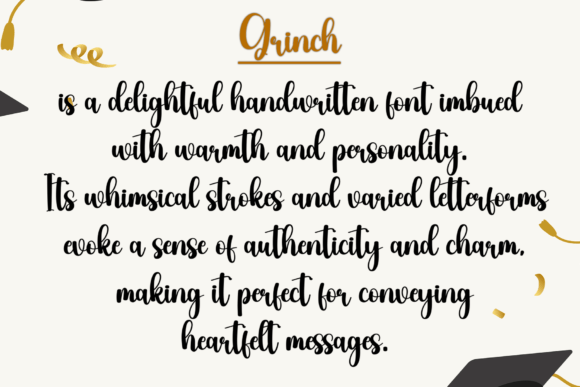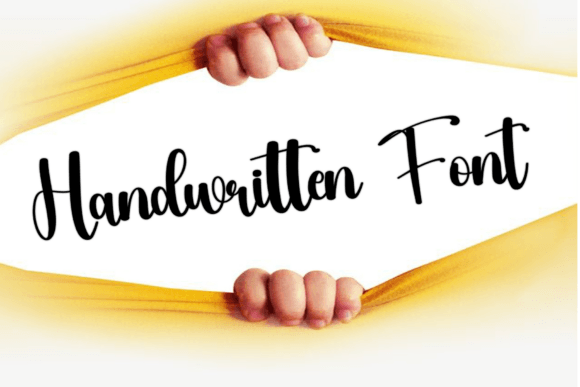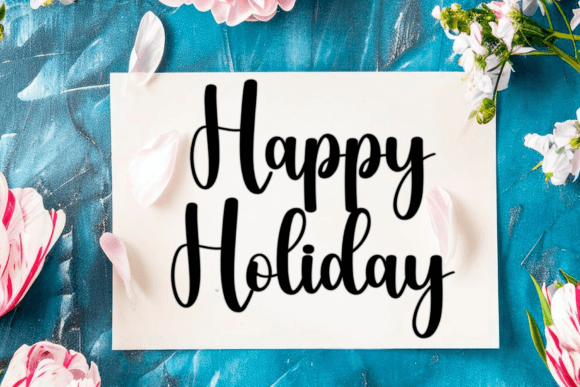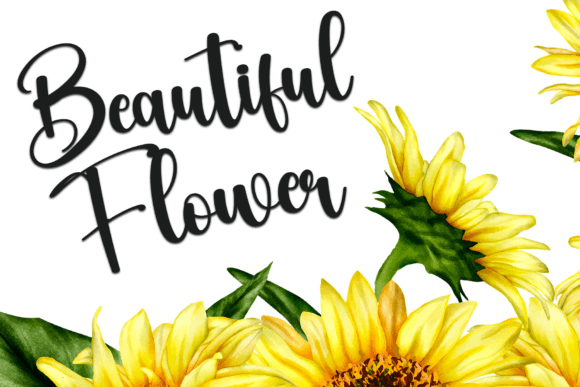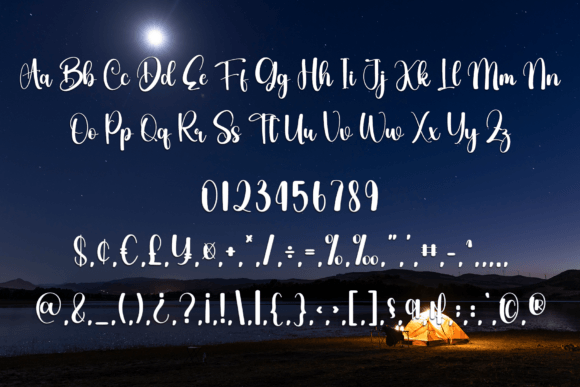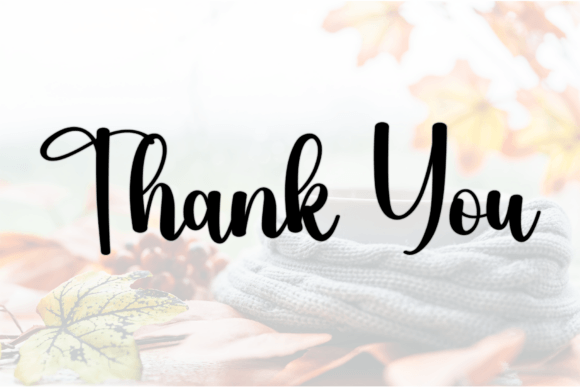
The Grinch Font: A Delightful Handwritten Font for Heartfelt Messages
Are you a designer or crafter looking for a font that can add a touch of warmth and personality to your designs? Look no further than the Grinch Font! This delightful handwritten font is imbued with warmth and personality, making it perfect for conveying heartfelt messages. In this article, we’ll take a closer look at the Grinch Font and explore its features, uses, and benefits.
What is the Grinch Font?
The Grinch Font is a whimsical handwritten font that is designed to evoke a sense of authenticity and charm. Its strokes and varied letterforms are carefully crafted to give it a unique and playful feel, making it perfect for a wide range of design applications. Whether you’re creating invitations, greeting cards, or branding materials, the Grinch Font is sure to add a touch of warmth and personality to your designs.
Features of the Grinch Font
The Grinch Font has several features that make it stand out from other fonts. Some of its key features include:
- Whimsical strokes: The Grinch Font has a playful and whimsical feel, with strokes that are carefully crafted to give it a unique and hand-drawn look.
- Varied letterforms: The font has a range of varied letterforms, which add to its charm and authenticity.
- Warm and inviting feel: The Grinch Font has a warm and inviting feel, making it perfect for conveying heartfelt messages.
Uses of the Grinch Font
The Grinch Font is a versatile font that can be used for a wide range of design applications. Some of the most popular uses for the font include:
- Invitations: The Grinch Font is perfect for creating invitations for special occasions, such as weddings, birthdays, and holidays.
- Greeting cards: The font is also great for creating greeting cards, such as Christmas cards, thank-you cards, and get-well cards.
- Branding: The Grinch Font can be used for branding materials, such as logos, business cards, and letterheads.
- Digital design: The font can also be used for digital design applications, such as social media graphics, blog posts, and email newsletters.
Benefits of the Grinch Font
The Grinch Font has several benefits that make it a great choice for designers and crafters. Some of the benefits of the font include:
- Unique and eye-catching: The Grinch Font is a unique and eye-catching font that is sure to stand out from other fonts.
- Easy to read: The font is easy to read, even at small sizes, making it perfect for a wide range of design applications.
- Versatile: The Grinch Font is a versatile font that can be used for a wide range of design applications.
- High-quality: The font is high-quality and professionally designed, ensuring that it will look great in any design.
Tips for Using the Grinch Font
Here are some tips for using the Grinch Font in your designs:
- Use it for headings and titles: The Grinch Font is perfect for headings and titles, where its whimsical feel can really shine.
- Pair it with other fonts: The Grinch Font can be paired with other fonts to create a unique and eye-catching design.
- Experiment with different colors: The font looks great in a range of colors, so don’t be afraid to experiment and find the perfect color for your design.
The Grinch Font is a delightful handwritten font that is perfect for conveying heartfelt messages. Its whimsical strokes and varied letterforms evoke a sense of authenticity and charm, making it perfect for a wide range of design applications. Whether you’re a designer or crafter, the Grinch Font is sure to add a touch of warmth and personality to your designs. So why not give it a try and see the difference it can make?